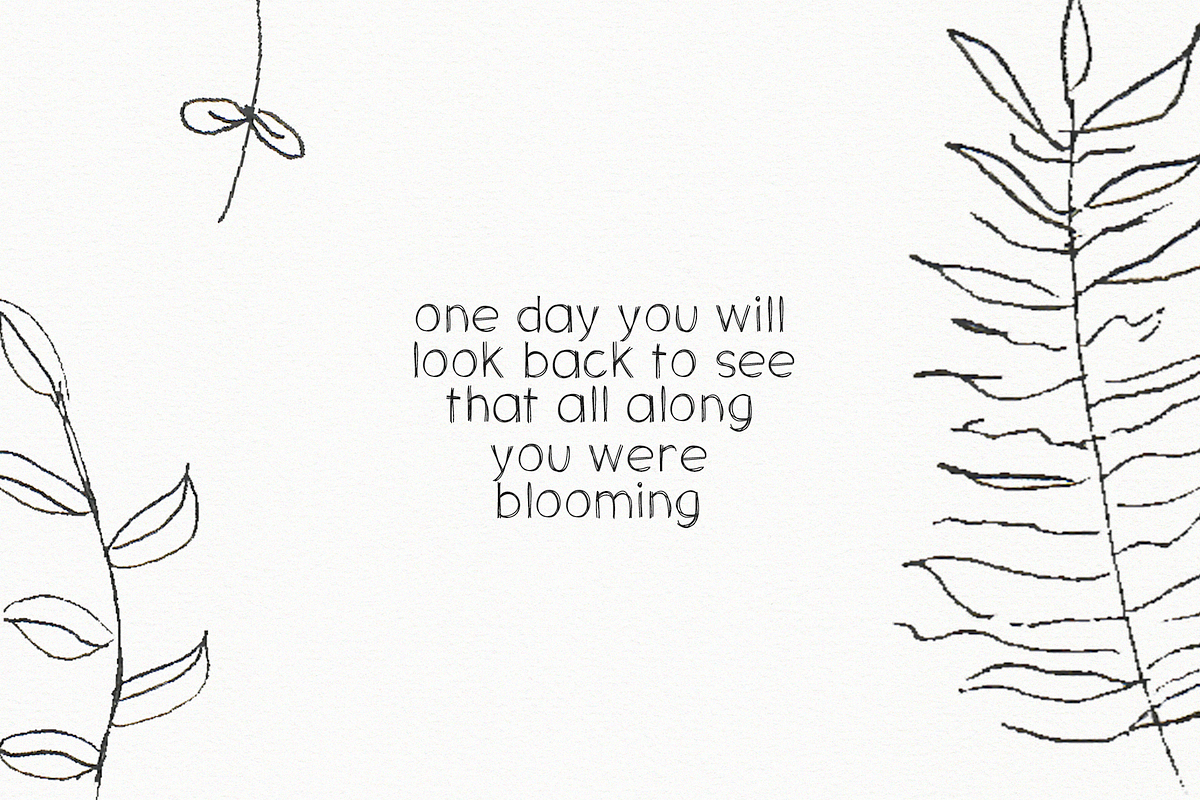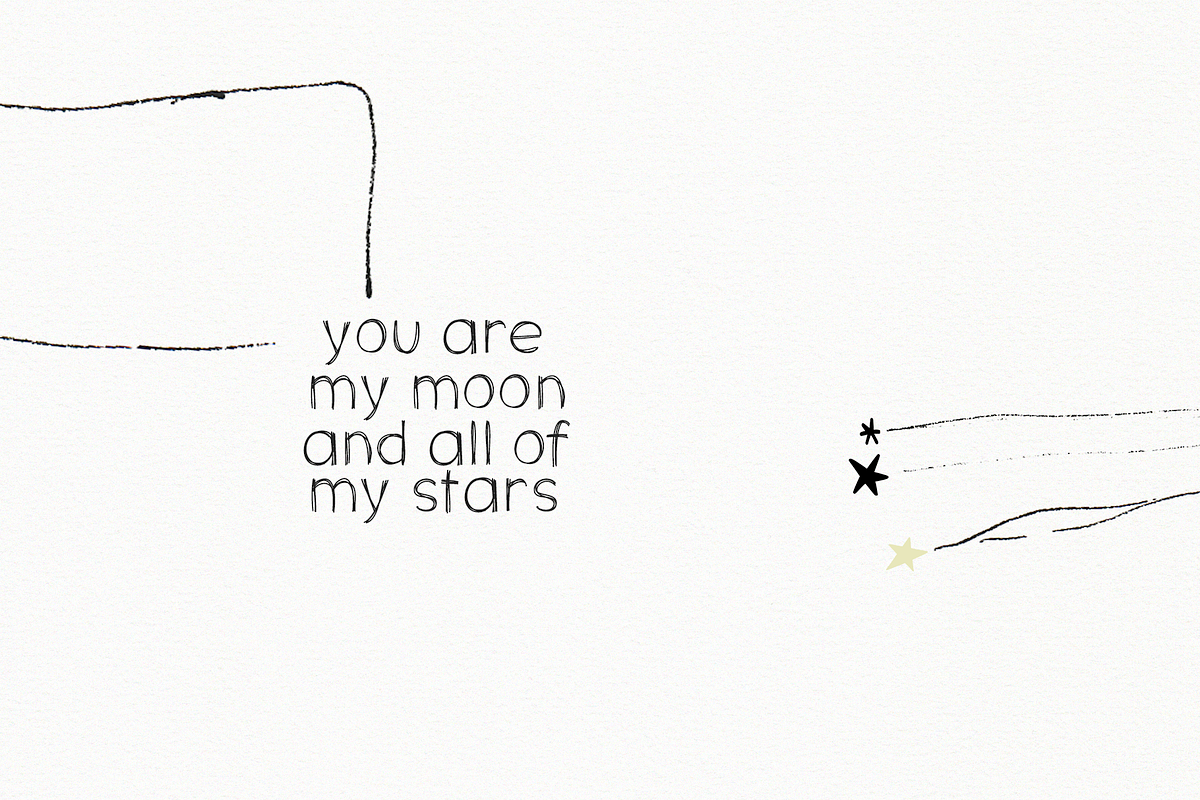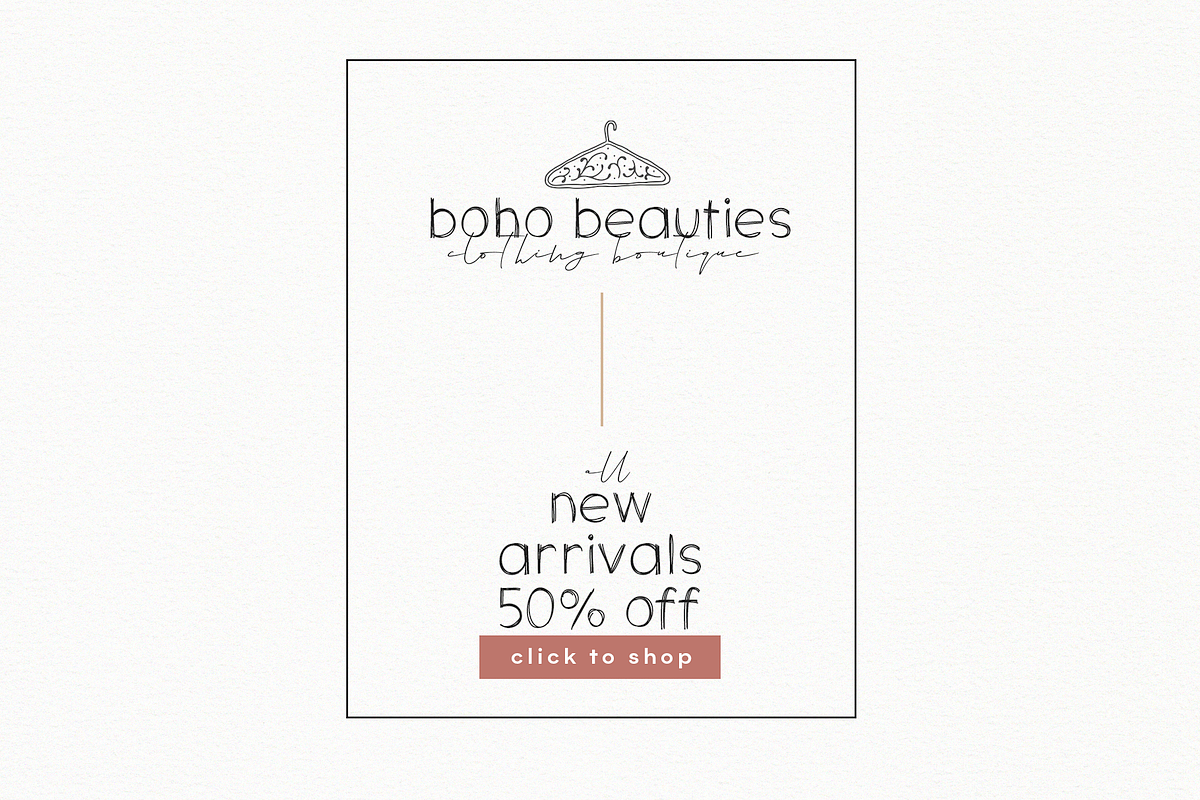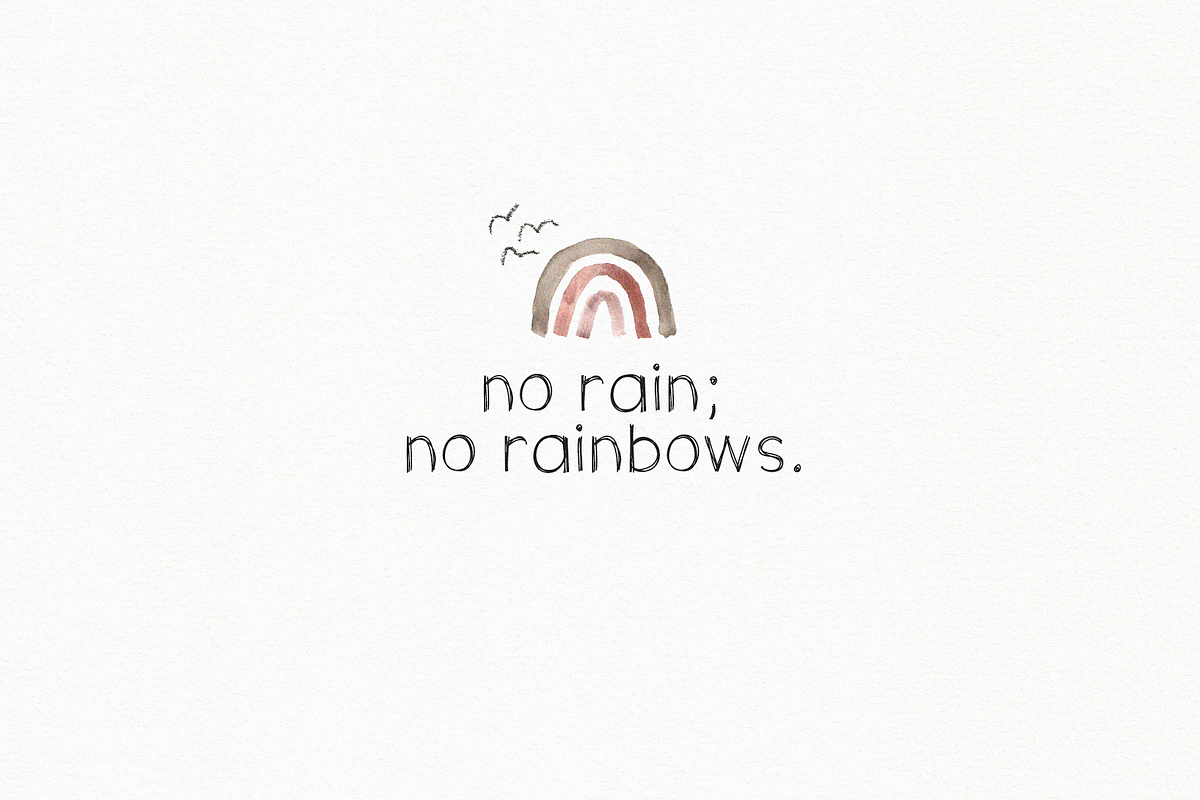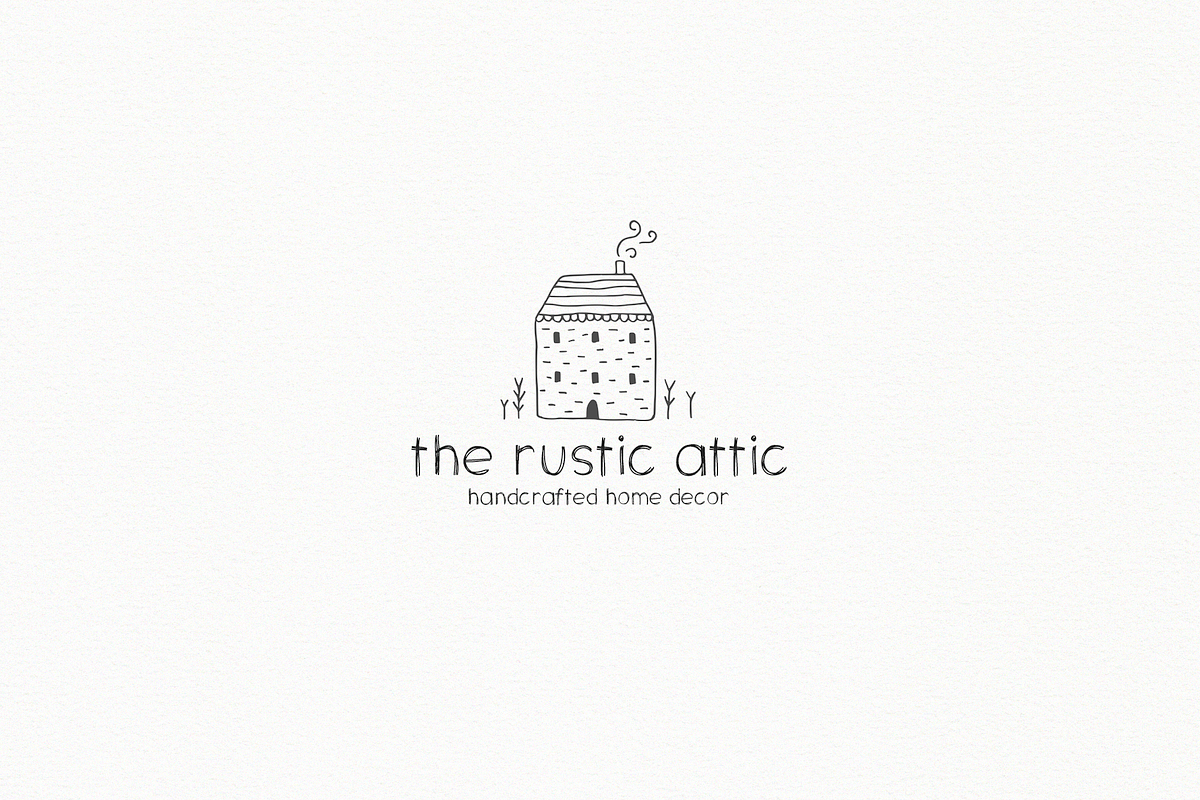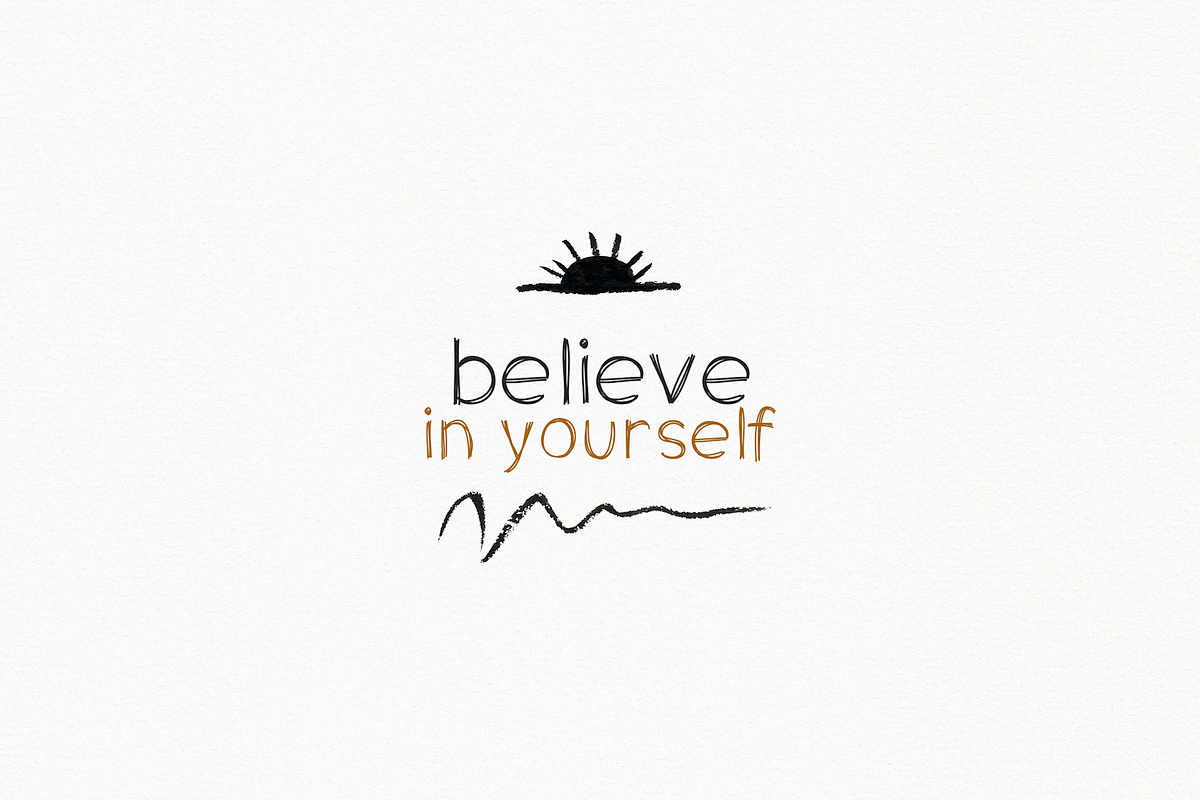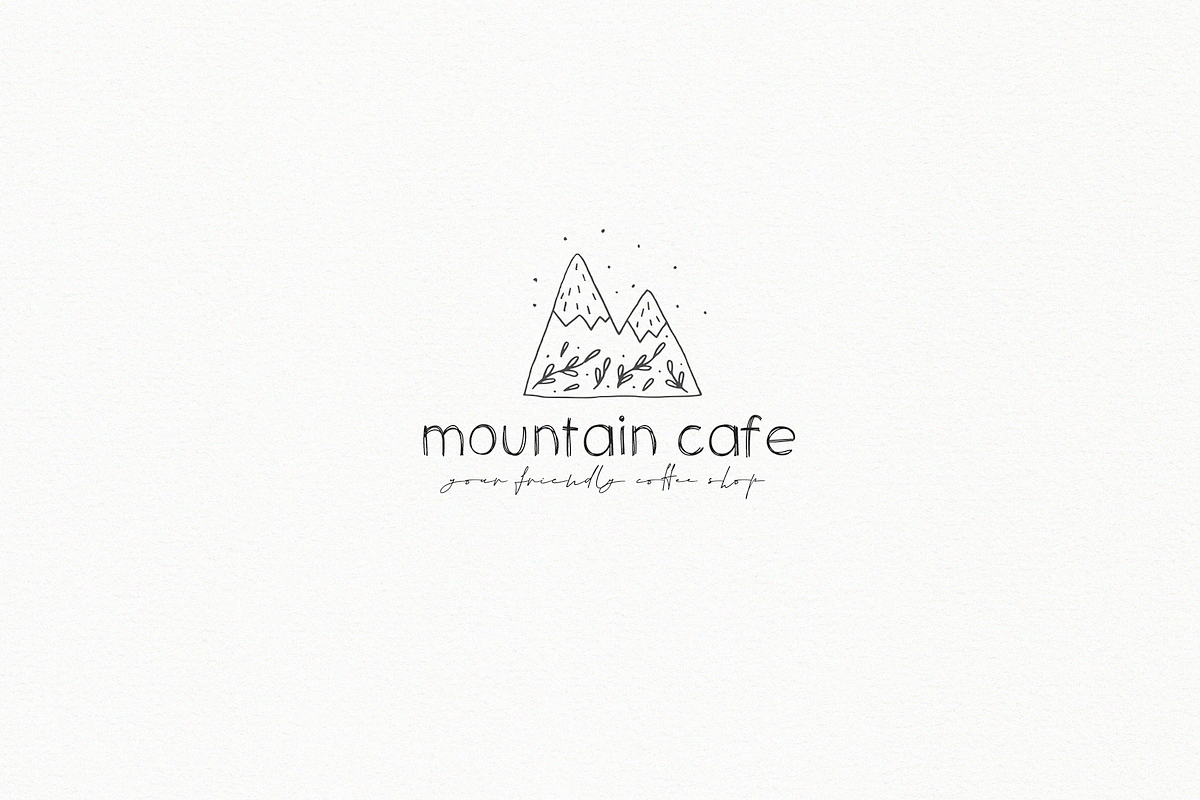
Believe - A Handwritten Font
Believe is a messy, handwritten font with a rustic look.
This font is perfect for branding, farmhouse designs, quotes, headings, logos, invitations and more!
Believe - A Handwritten Font by KA Designs fits naturally into Branding, posters, packaging, typography.